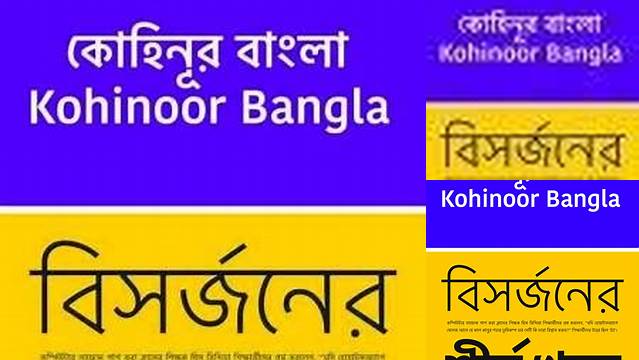
Hey guys! Looking for a sleek and modern Bangla font? You've landed in the right spot! Today, we're diving deep into the world of Kohinoor Bangla, a fantastic font that's become a favorite for designers and typographers alike. We’ll explore everything from where to snag a free download to how to use it effectively in your projects. So, let's jump right in and unravel the magic of Kohinoor Bangla!
1. What is Kohinoor Bangla Font?
Kohinoor Bangla isn't just another font; it's a testament to the beauty and complexity of the Bangla script. This typeface is part of the larger Kohinoor family, known for its clarity and versatility across different writing systems. Kohinoor Bangla specifically is designed to capture the essence of Bangla typography while maintaining readability and a modern aesthetic. This makes it incredibly useful for a variety of applications, from web design and print media to mobile applications and branding materials. The font's clean lines and balanced forms ensure that it works well in both body text and headlines, providing a consistent and professional look. Understanding what Kohinoor Bangla brings to the table in terms of typographic flexibility and visual appeal is the first step in appreciating its value. Whether you are working on a project that requires a traditional touch or a contemporary feel, Kohinoor Bangla can be adapted to fit your needs. It’s a font that respects the heritage of Bangla script while pushing it forward into modern design contexts.
2. Key Features of Kohinoor Bangla
So, what makes Kohinoor Bangla stand out from the crowd? It's not just its elegant design, but also the features that make it a practical choice for various projects. One of the key features is its excellent legibility. The font is designed to be easily readable even at smaller sizes, which is crucial for body text in websites and documents. This legibility stems from the careful attention to the spacing and proportions of each character. Another important feature is its versatility. Kohinoor Bangla comes in various weights, from light to bold, allowing you to create a visual hierarchy in your designs. The availability of different weights means you can use the same font family for headings, subheadings, and body text, ensuring a cohesive look. Furthermore, Kohinoor Bangla includes a wide range of glyphs, supporting not only standard Bangla characters but also various symbols and numerals. This comprehensive character set ensures that you can use the font in a variety of contexts without running into issues with missing characters. The font also boasts excellent rendering across different platforms and devices, ensuring that your text looks consistent whether it's viewed on a desktop computer, a mobile phone, or a printed page. This cross-platform compatibility is a significant advantage, especially in today's diverse digital landscape. All these features combined make Kohinoor Bangla a robust and reliable choice for anyone working with Bangla typography.